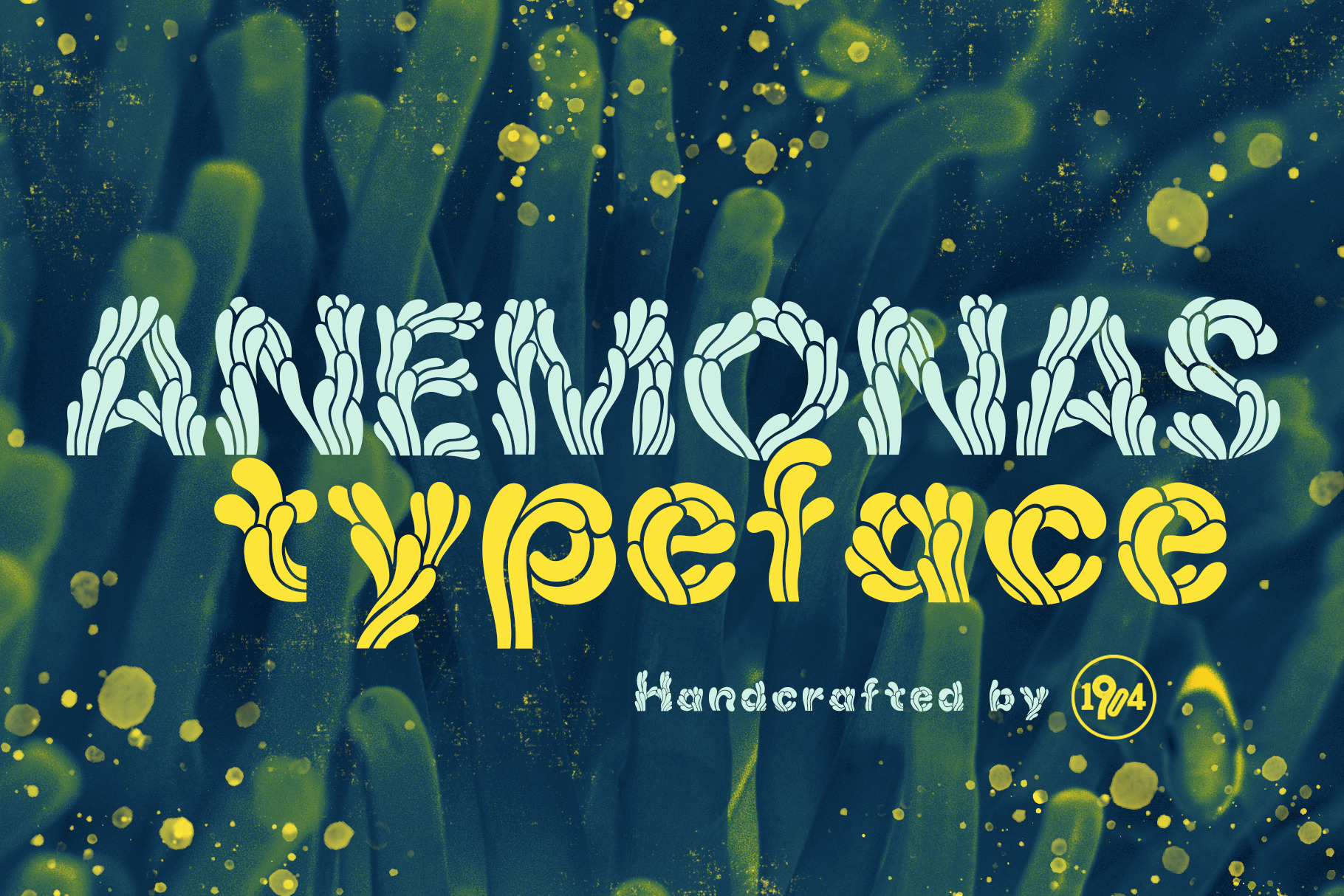
Anemonas Typeface
Anemonas is an OTF display font that comes with uppercase, lowercase, numerals, and punctuations (176 glyphs). Perfect to be used on posters, children`s books, illustrations, etc.